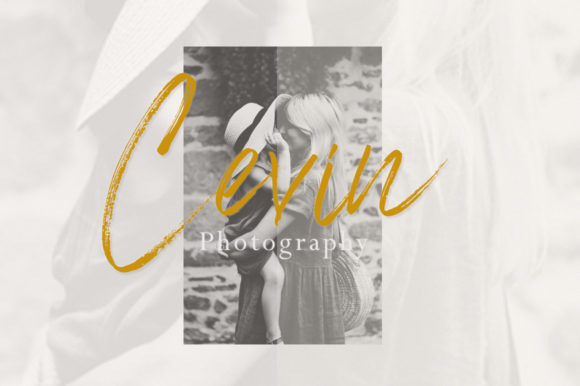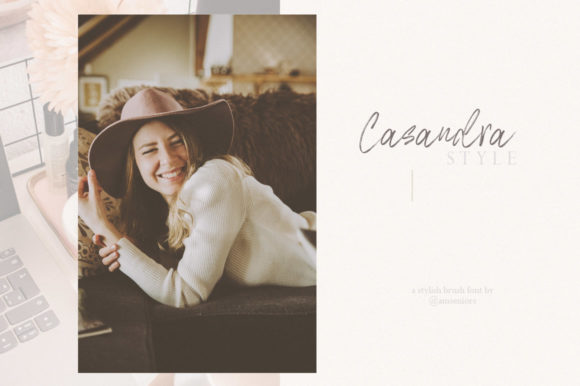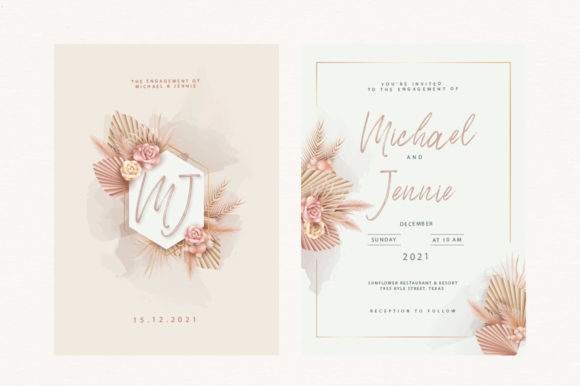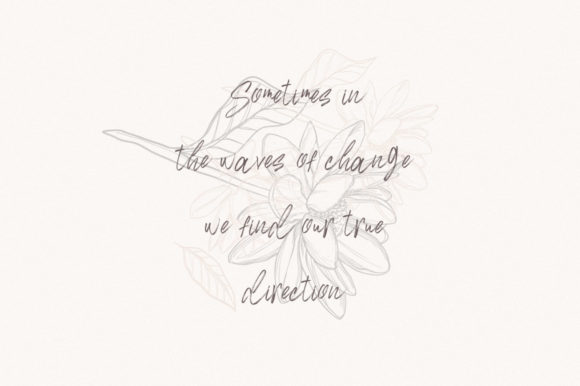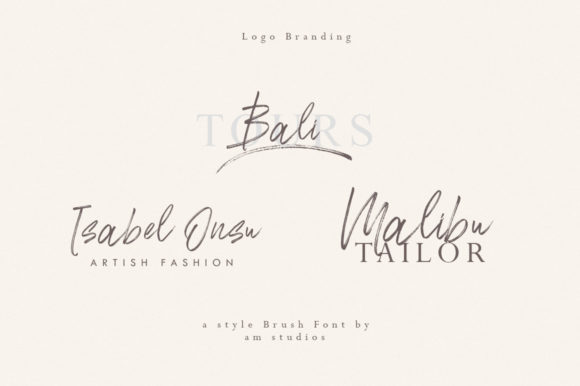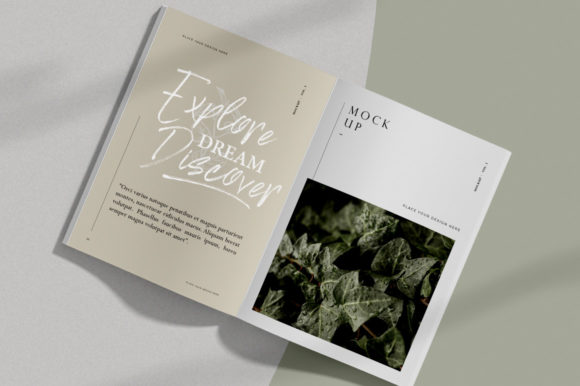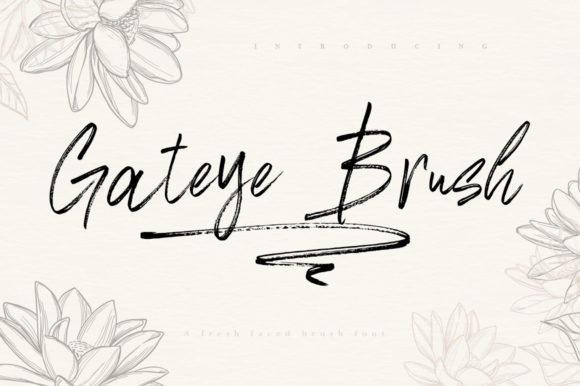
Introducing Gateye Font: Elevate Your Designs with Timeless Elegance
Are you on the hunt for a font that exudes sophistication, elegance, and a touch of modern flair? Look no further than Gateye Font, a stunning cursive brushed script font that is sure to elevate your designs to new heights. Inspired by the timeless classics of calligraphy, Gateye Font brings a contemporary atmosphere to the table, making it the perfect addition to your typography arsenal.
The Inspiration Behind Gateye Font
Gateye Font draws its inspiration from the world of classic calligraphy, where the art of beautiful handwriting has been perfected over centuries. The font’s creator aimed to capture the essence of this timeless art form and infuse it with a modern twist, making it suitable for a wide range of design applications. The result is a font that is both nostalgic and fresh, with a unique character that sets it apart from more traditional fonts.
Design Characteristics of Gateye Font
So, what makes Gateye Font so special? For starters, its cursive brushed script style gives it a fluid, dynamic feel that is perfect for creating eye-catching headlines, titles, and other design elements. The font’s lines are carefully crafted to be neither too thin nor too thick, achieving a beautiful balance that adds to its overall aesthetic appeal.
One of the standout features of Gateye Font is its impeccable form. Each letter is carefully designed to flow seamlessly into the next, creating a sense of continuity and harmony that is a joy to behold. This attention to detail makes Gateye Font an excellent choice for designers who want to add a touch of sophistication to their work.
Versatility and Balance
Gateye Font is designed to be versatile, with a range of applications that make it suitable for various design projects. Whether you’re working on a logo, a brochure, a website, or any other type of design, Gateye Font can help you achieve your goals. Its balanced and varied strokes ensure that it looks great in a variety of contexts, from large headlines to smaller body text.
Key Benefits of Using Gateye Font
• Elegant and Sophisticated: Gateye Font adds a touch of elegance and sophistication to any design project, making it perfect for high-end brands and luxury products.
• Contemporary Atmosphere: With its modern twist on classic calligraphy, Gateye Font brings a fresh and contemporary atmosphere to your designs.
• Balanced and Varied: The font’s carefully crafted strokes ensure that it looks great in a variety of contexts, from large headlines to smaller body text.
• Easy to Read: Despite its elegant and cursive nature, Gateye Font remains easy to read, making it suitable for body text and other longer-form content.
Who Can Benefit from Gateye Font?
Gateye Font is an excellent addition to any designer’s toolkit, regardless of their specific area of expertise. Here are just a few examples of designers and crafters who can benefit from using Gateye Font:
• Graphic Designers: Gateye Font is perfect for graphic designers who want to add a touch of elegance and sophistication to their work.
• Web Designers: With its clean and modern lines, Gateye Font is an excellent choice for web designers who want to create visually stunning websites.
• Crafters and Artists: Gateye Font can add a unique and creative touch to craft projects, artwork, and other handmade endeavors.
In conclusion, Gateye Font is a stunning cursive brushed script font that is sure to elevate your designs to new heights. With its timeless elegance, contemporary atmosphere, and impeccable form, Gateye Font is the perfect addition to any designer’s toolkit. Whether you’re a graphic designer, web designer, or crafter, Gateye Font has the potential to transform your work and help you achieve your creative goals.